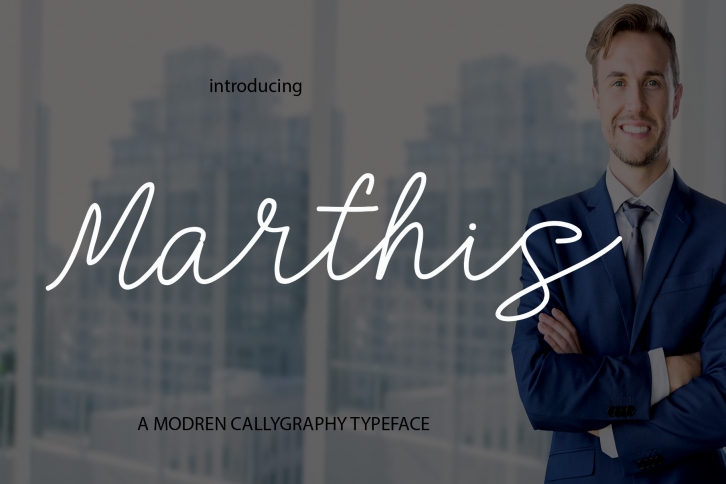
Marthis is a trendy and unique font with an authentic style. It was designed by Mahyud Creatif and it's a great choice for creative people who need such a font. It was released on November 14, 2019 and the file size is 17.95 MB. Marthis will add an organic vibe to any design idea!